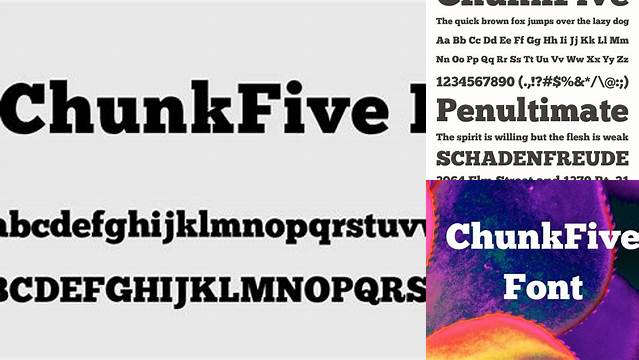
Let's dive into the world of ChunkFive Ex Font, a font that's been turning heads and catching eyes in the design community. This guide will walk you through everything you need to know about ChunkFive Ex Font, including how to snag it for free and how to use it to make your projects pop. So, buckle up and get ready to explore this awesome font!
What is ChunkFive Ex Font?
ChunkFive Ex Font is a bold, slab-serif typeface known for its strong, impactful presence. It's the kind of font that commands attention, making it perfect for headlines, posters, and anything else where you want to make a statement. Its clean lines and robust characters give it a retro yet modern feel, making it versatile for a wide range of design applications. ChunkFive Ex Font is not just another font; it’s a design tool that can elevate your work from simple to striking. Whether you're working on a vintage-inspired project or something ultra-modern, this font can add that perfect touch of character and boldness. Plus, its readability is top-notch, ensuring that your message gets across loud and clear. It’s no wonder designers love it for branding, advertising, and even web design.
Why Choose ChunkFive Ex Font?
Choosing ChunkFive Ex Font for your project brings a unique blend of nostalgia and modernity. Its slab-serif design is reminiscent of classic fonts used in vintage posters and advertisements, giving your work a timeless appeal. But don’t let that fool you; ChunkFive Ex Font also has a contemporary edge that makes it suitable for modern designs. The boldness of ChunkFive Ex Font ensures that your message is never missed. It's perfect for headlines, logos, and any design element that needs to stand out. Its strong, clean lines make it highly readable, even at smaller sizes, ensuring that your text is both eye-catching and legible. Beyond aesthetics, ChunkFive Ex Font offers versatility. It works well in both print and digital media, making it a reliable choice for a wide range of projects. Whether you're designing a website, a poster, or a brand identity, this font can adapt to your needs and enhance your overall design. Ultimately, choosing ChunkFive Ex Font is about making a statement. It's about adding a touch of character and confidence to your work, ensuring that it leaves a lasting impression.
ChunkFive Ex Font: Design Aesthetics
The design aesthetics of ChunkFive Ex Font are what truly set it apart. Its slab-serif style gives it a distinctive, blocky appearance that exudes strength and stability. The font's clean lines and uniform letterforms contribute to its modern feel, making it a versatile choice for various design projects. ChunkFive Ex Font strikes a perfect balance between retro and contemporary aesthetics. It evokes the nostalgia of vintage typography while maintaining a sleek, modern edge. This makes it ideal for designs that aim to blend the old with the new. One of the key aesthetic features of ChunkFive Ex Font is its boldness. The thick strokes of each character command attention, ensuring that your text stands out. This makes it particularly effective for headlines, titles, and branding elements. The font's readability is also a crucial aspect of its design aesthetics. Despite its bold appearance, ChunkFive Ex Font remains highly legible, even at smaller sizes. This ensures that your message is clear and easy to read, regardless of the context. In addition to its overall appearance, ChunkFive Ex Font offers a range of stylistic options. Different weights and variations allow you to fine-tune the font to suit your specific design needs. This flexibility makes it a valuable asset in any designer's toolkit.
Using ChunkFive Ex Font in Graphic Design
ChunkFive Ex Font is a fantastic choice for graphic design projects that need a touch of boldness and character. Once you download fonts for free and install it, you'll find it's incredibly versatile. In logos and branding, ChunkFive Ex Font can create a strong, memorable identity. Its slab-serif style is perfect for conveying a sense of stability and trustworthiness. Use it for headlines to grab attention and make a statement. Its readability ensures that your message is clear and impactful. For posters and flyers, ChunkFive Ex Font can be used to create eye-catching designs. Its retro yet modern feel makes it suitable for a wide range of themes. In web design, ChunkFive Ex Font can add a unique touch to your website's typography. Use it for headings and subheadings to create visual hierarchy and improve readability. When using ChunkFive Ex Font in graphic design, consider its weight and spacing. Adjusting these settings can help you achieve the desired look and feel. Experiment with different color combinations to see how ChunkFive Ex Font interacts with your design. Overall, ChunkFive Ex Font is a valuable asset for any graphic designer looking to add a touch of boldness and character to their work. Its versatility and readability make it a reliable choice for a wide range of projects.